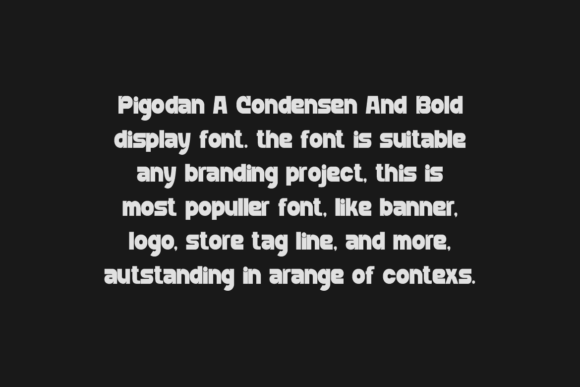
Pigodan Font: Elevate Your Designs with a Stylish and Authentic Display Font
In the world of typography, fonts play a crucial role in conveying the tone and personality of a brand or design. When it comes to creating visually stunning and effective designs, selecting the right font is essential. One such font that has gained popularity among designers and artists is Pigodan Font. In this article, we’ll explore the features, benefits, and uses of Pigodan Font, and how it can elevate your designs to the next level.
What is Pigodan Font?
Pigodan Font is a stylish and authentic display font designed to make a statement. Its unique and versatile design makes it perfect for various projects, including logos, posters, branding, and more. The font’s simplicity and elegance allow it to adapt to different design styles, ensuring that your work stands out from the crowd.
Key Features of Pigodan Font
- Stylish and Authentic Design: Pigodan Font boasts a distinctive and genuine design that adds a touch of sophistication to your designs.
- Versatile and Simple: The font’s simplicity makes it easy to pair with other fonts, while its versatility allows it to be used in various design contexts.
- Perfect for Display Purposes: Pigodan Font is specifically designed for display purposes, making it ideal for headlines, titles, and other attention-grabbing elements.
- Wide Range of Applications: From logos and posters to branding and advertising, Pigodan Font can be used in a variety of design projects.
Benefits of Using Pigodan Font
Using Pigodan Font in your designs offers several benefits, including:
- Unique Visual Identity: Pigodan Font helps create a distinctive visual identity for your brand or design, setting it apart from others.
- Enhanced Creativity: The font’s stylish and authentic design inspires creativity, allowing you to experiment with different design styles and ideas.
- Improved Readability: Pigodan Font’s clear and legible design ensures that your message is conveyed effectively, even at larger font sizes.
- Time-Saving: With Pigodan Font, you can quickly and easily create stunning designs without spending hours on typography.
How to Use Pigodan Font in Your Designs
Using Pigodan Font in your designs is straightforward. Here are some tips to get you started:
- Pair it with Other Fonts: Combine Pigodan Font with other fonts to create a unique and visually appealing typography.
- Experiment with Font Sizes: Use Pigodan Font in various font sizes to create visual hierarchy and emphasis.
- Play with Colors: Try Pigodan Font with different colors to add depth and personality to your designs.
- Keep it Simple: Don’t overcomplicate your design – Pigodan Font’s simplicity is part of its charm.
Pigodan Font in Logo Design
Pigodan Font is an excellent choice for logo design due to its unique and memorable design. Here are some ways to use Pigodan Font in logo design:
- Create a Bold Statement: Use Pigodan Font to create a bold and attention-grabbing logo that makes a statement.
- Add Sophistication: Pigodan Font’s elegant design adds sophistication and professionalism to your logo.
- Make it Versatile: Use Pigodan Font in various logo design applications, from business cards to billboards.
Pigodan Font in Poster Design
Pigodan Font is also perfect for poster design, where its stylish and authentic design can shine. Here are some tips for using Pigodan Font in poster design:
- Create a Focal Point: Use Pigodan Font to create a focal point in your poster, drawing attention to the main message.
- Add Visual Hierarchy: Use Pigodan Font in various font sizes to create a visual hierarchy, guiding the viewer’s eye through the poster.
- Make it Readable: Ensure that your poster is readable by using Pigodan Font in a clear and legible way.
Pigodan Font is a stylish and authentic display font that can elevate your designs to the next level. Its unique and versatile design makes it perfect for various projects, from logos and posters to branding and advertising. With its simplicity, elegance, and readability, Pigodan Font is an excellent choice for designers and artists looking to create visually stunning and effective designs.
- What is Pigodan Font? Pigodan Font is a stylish and authentic display font designed for various design applications.